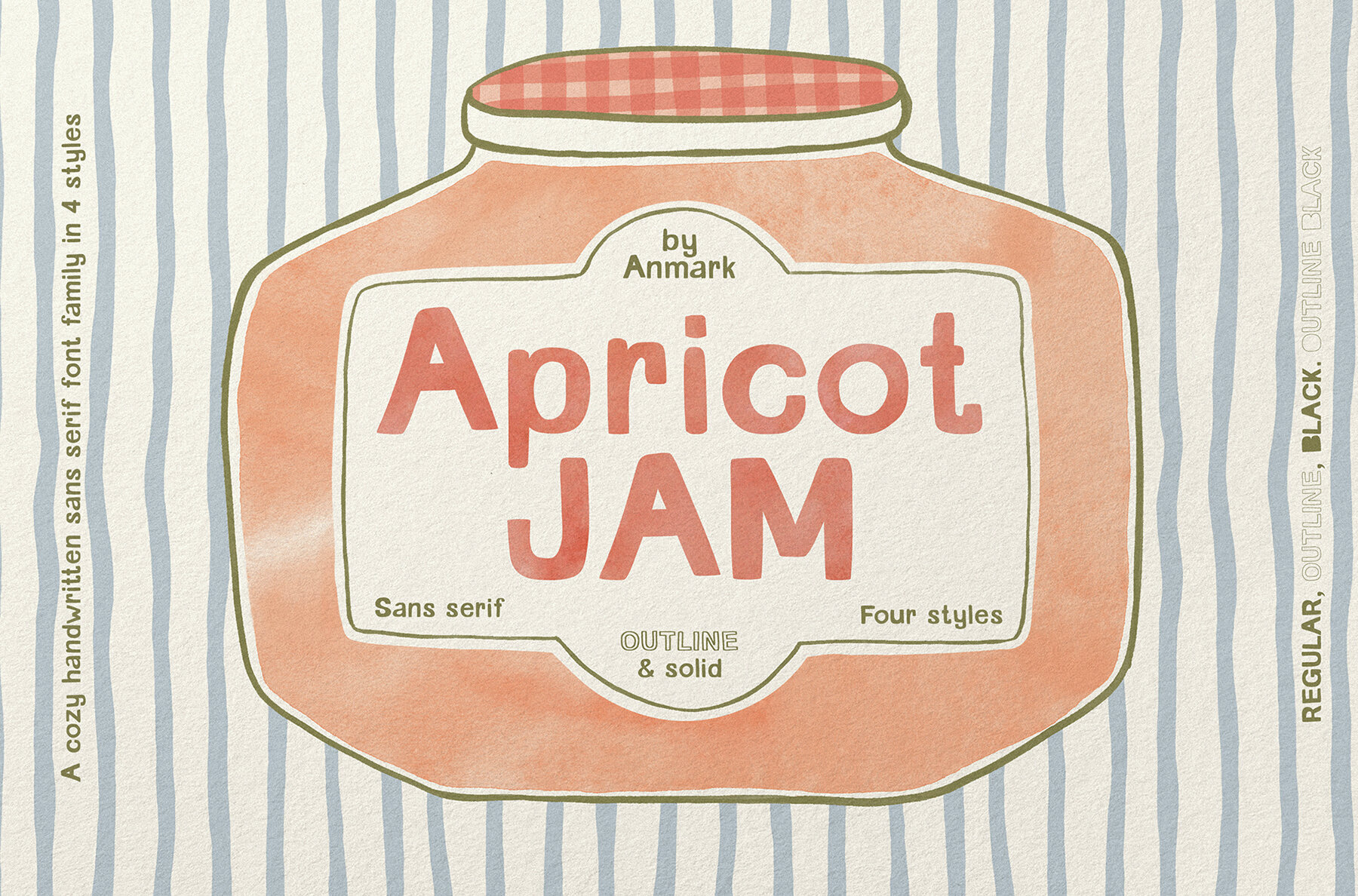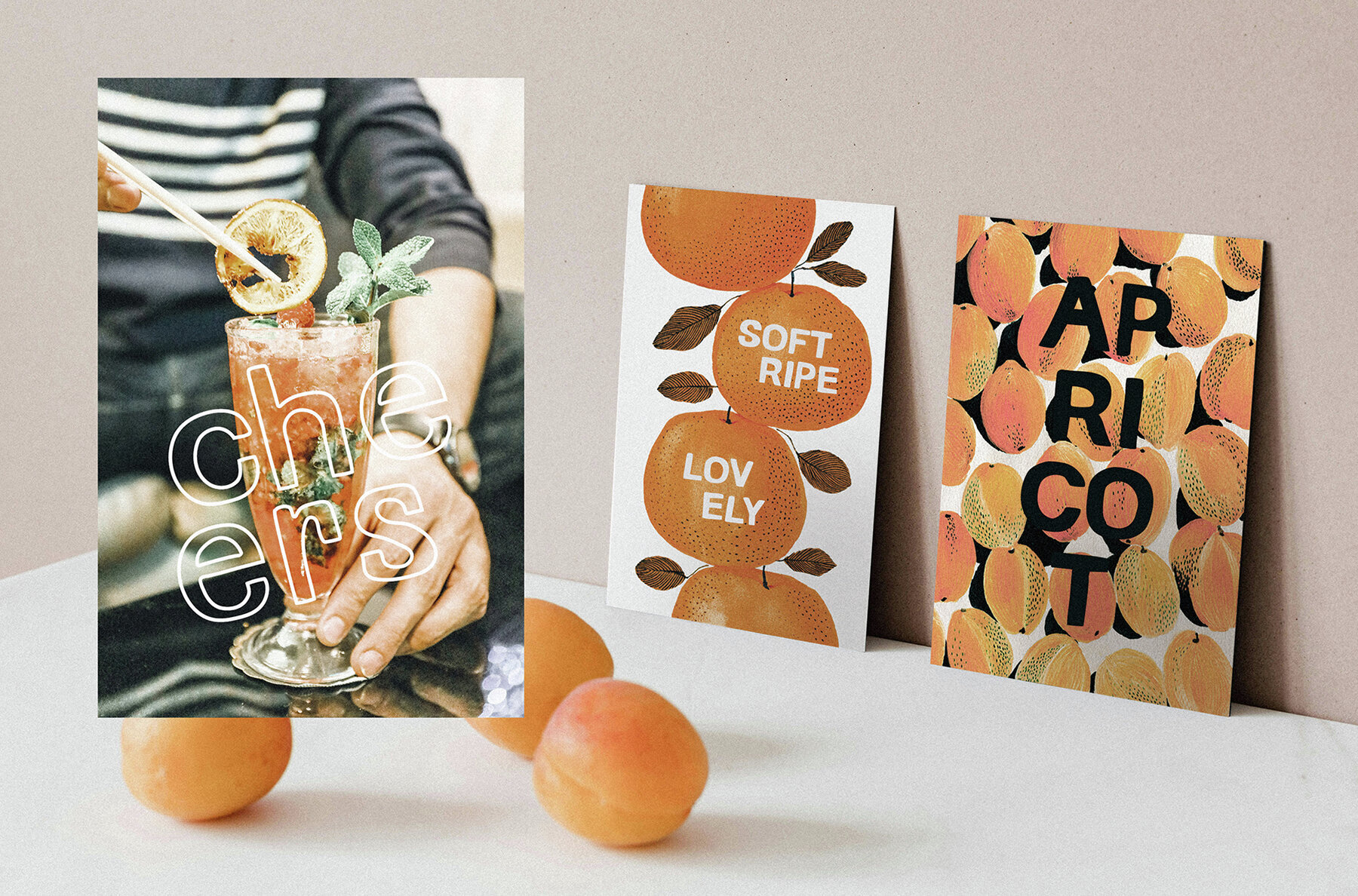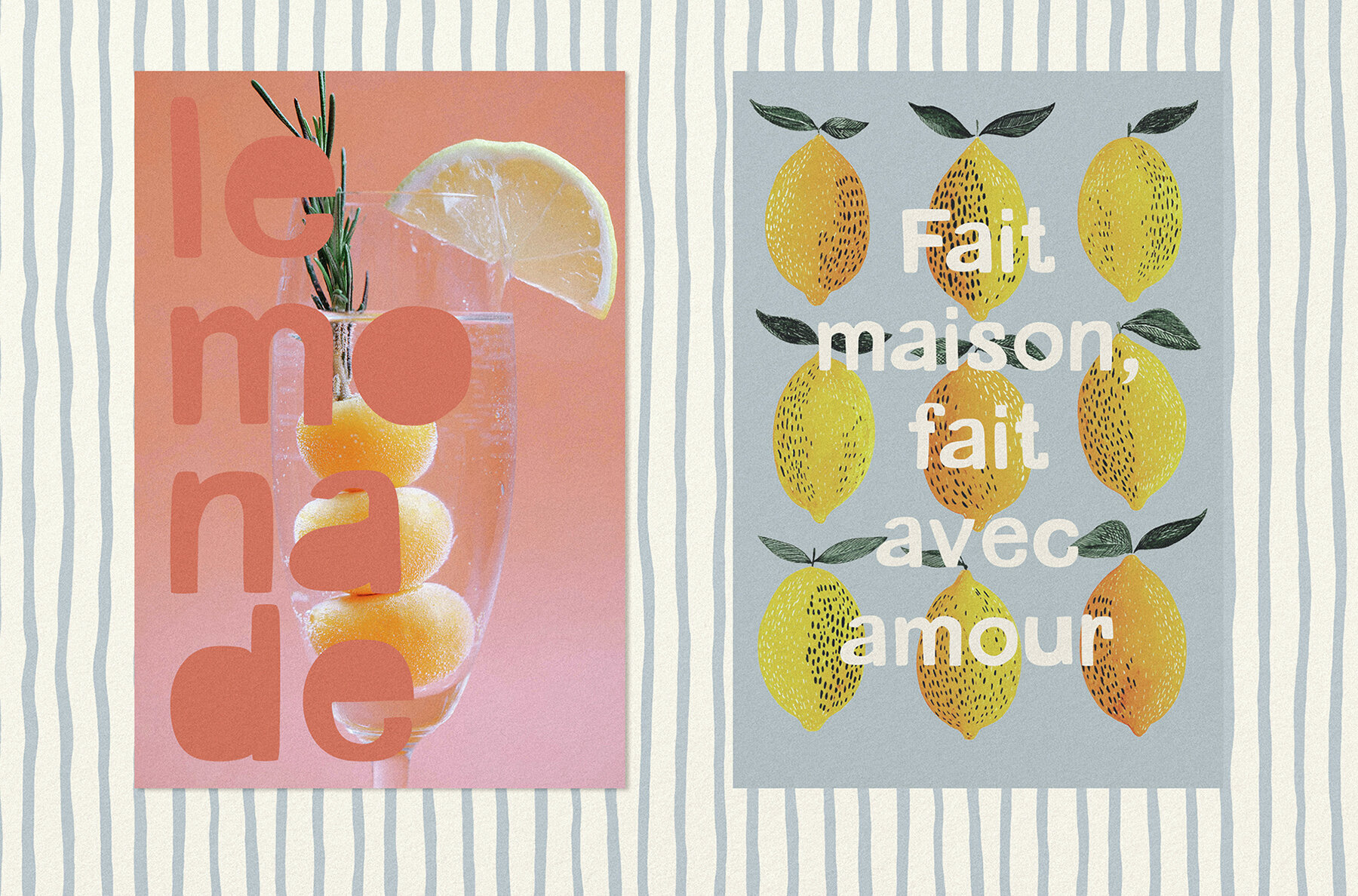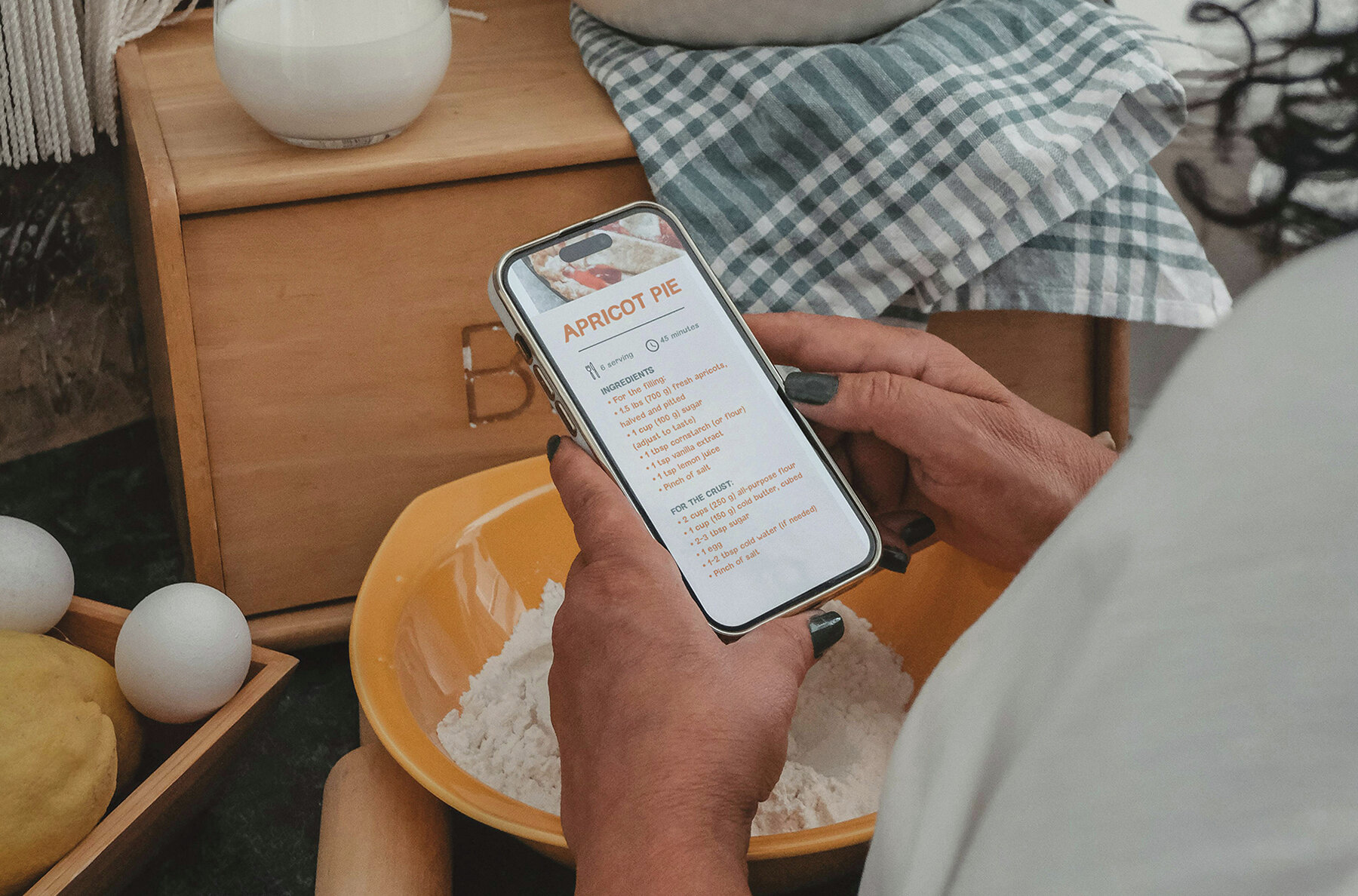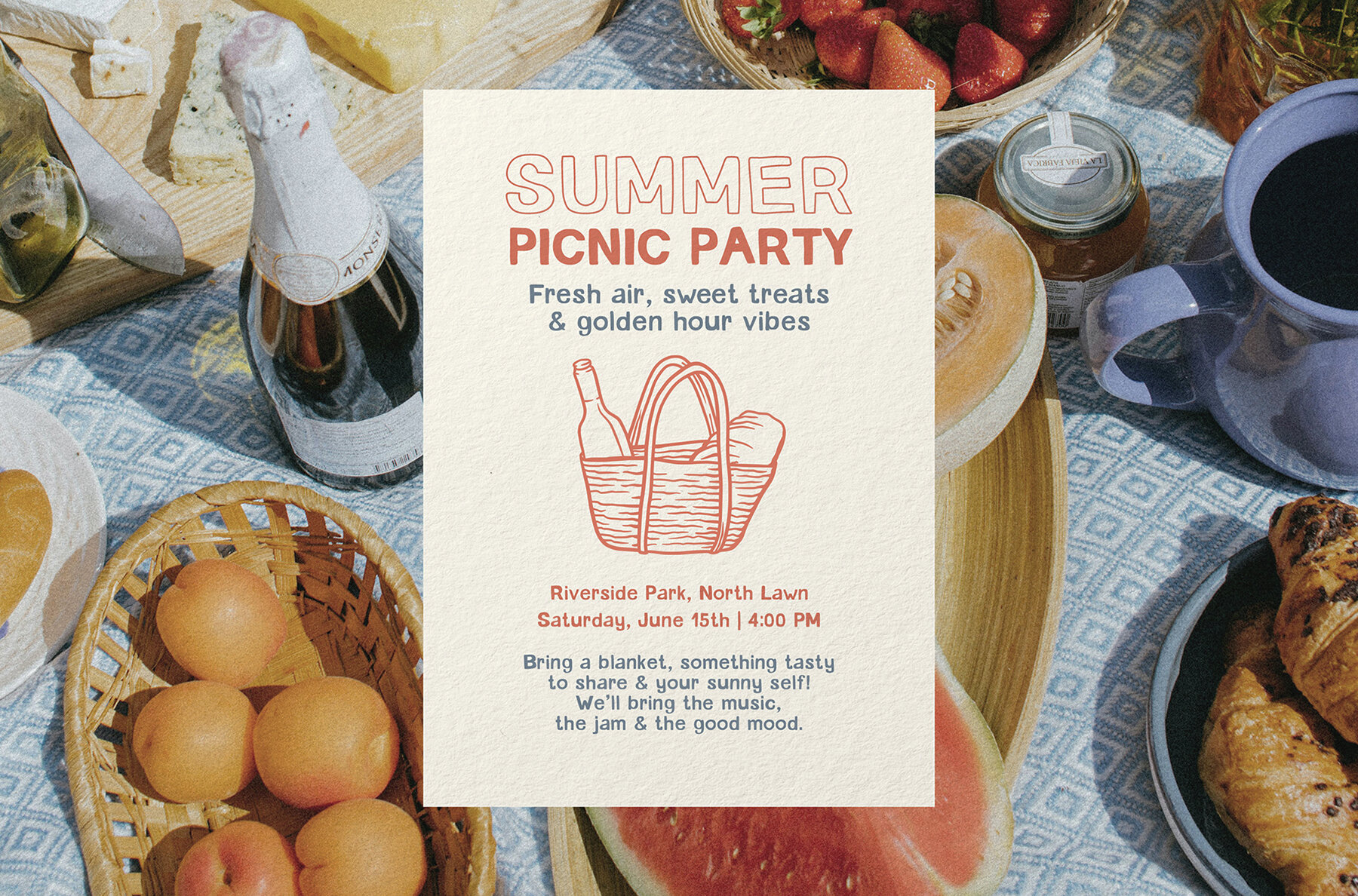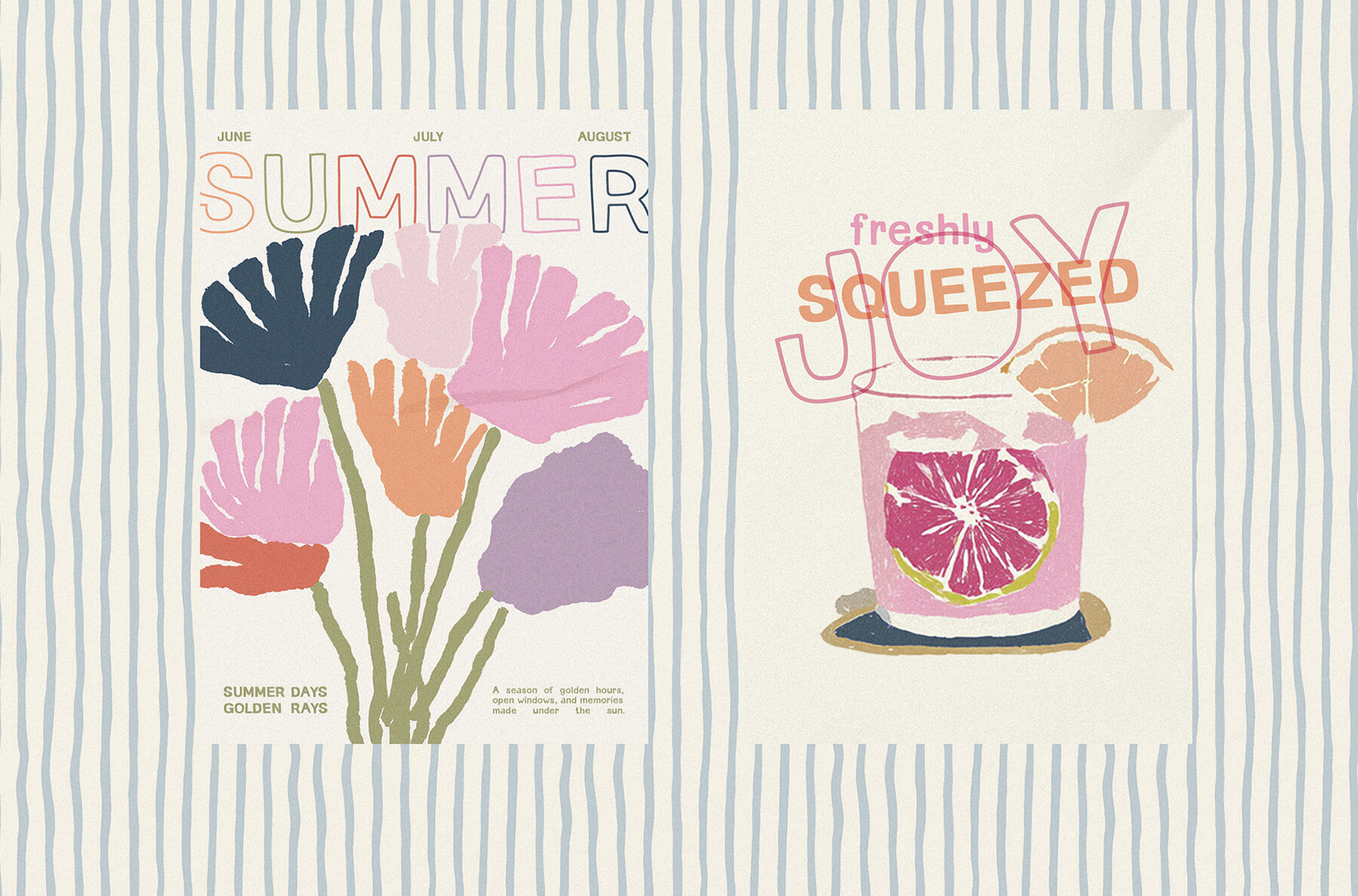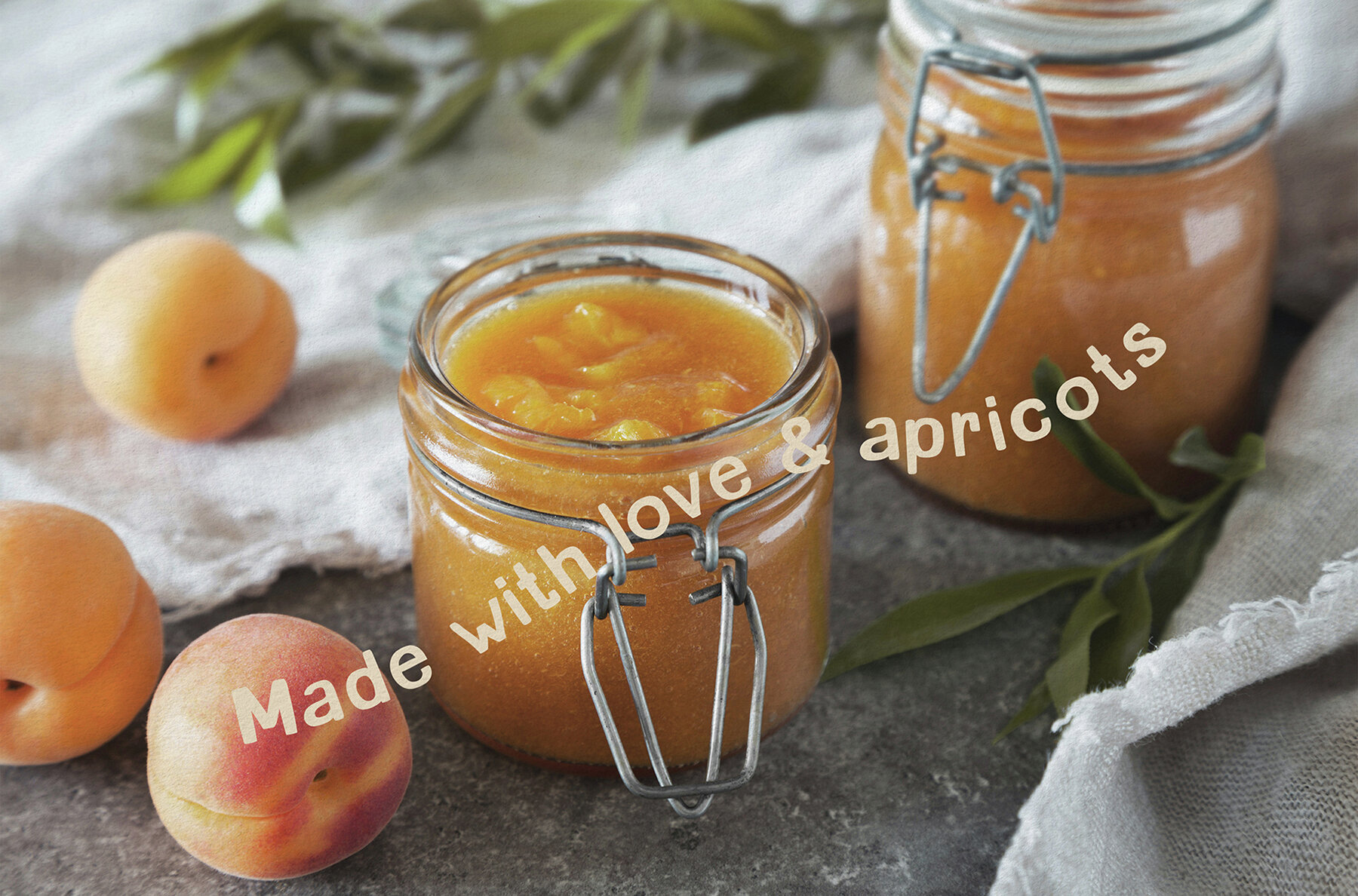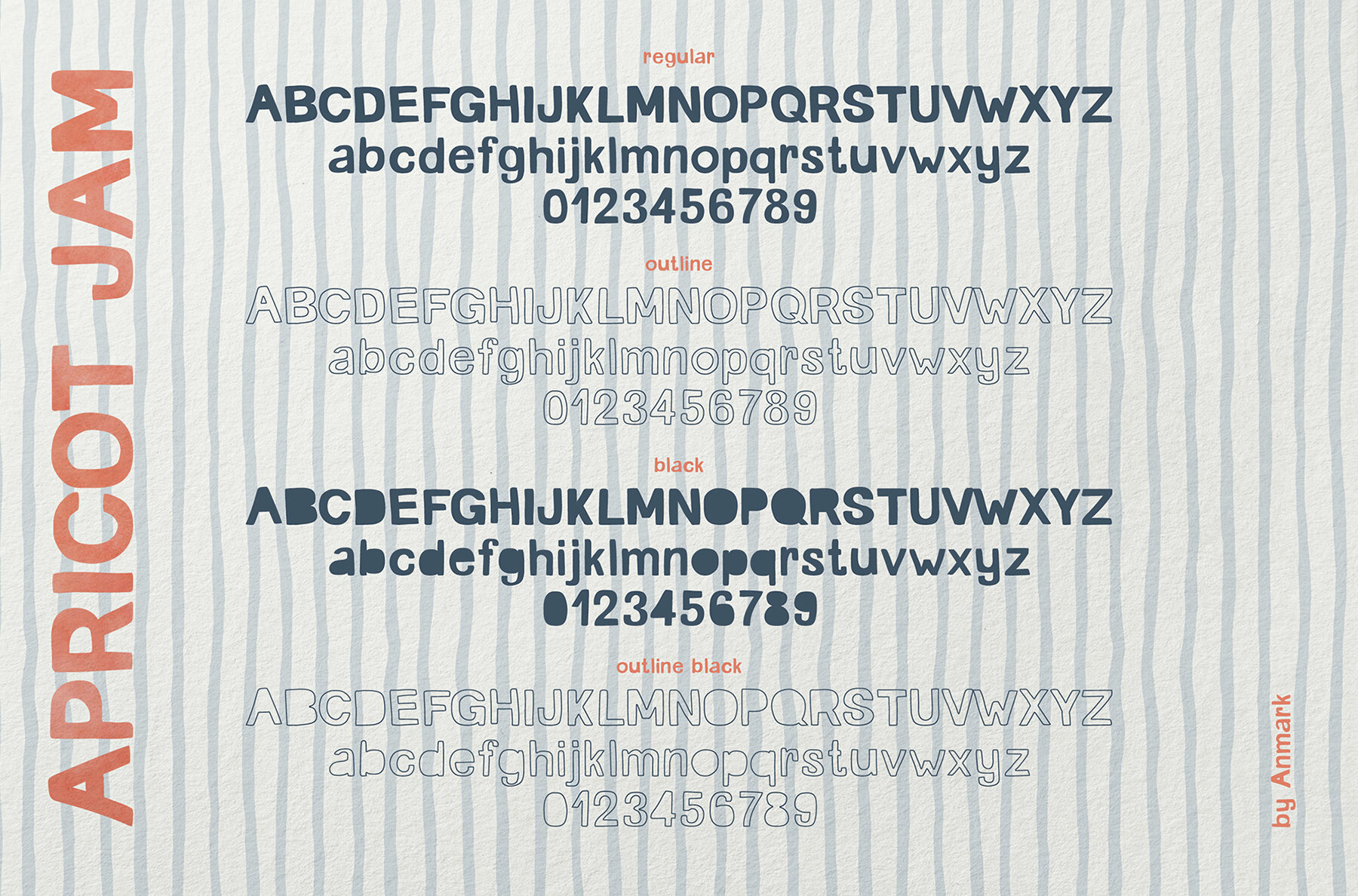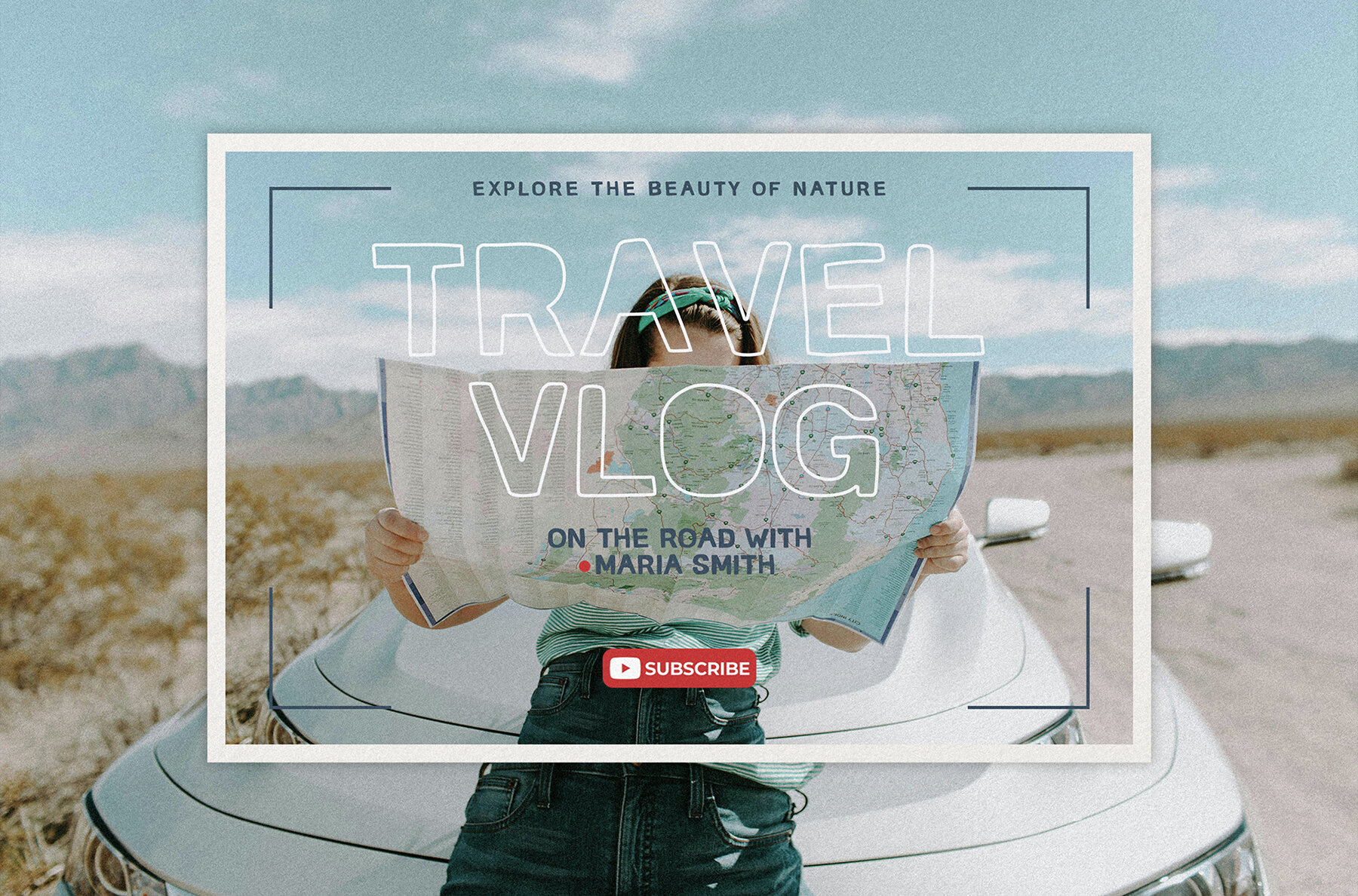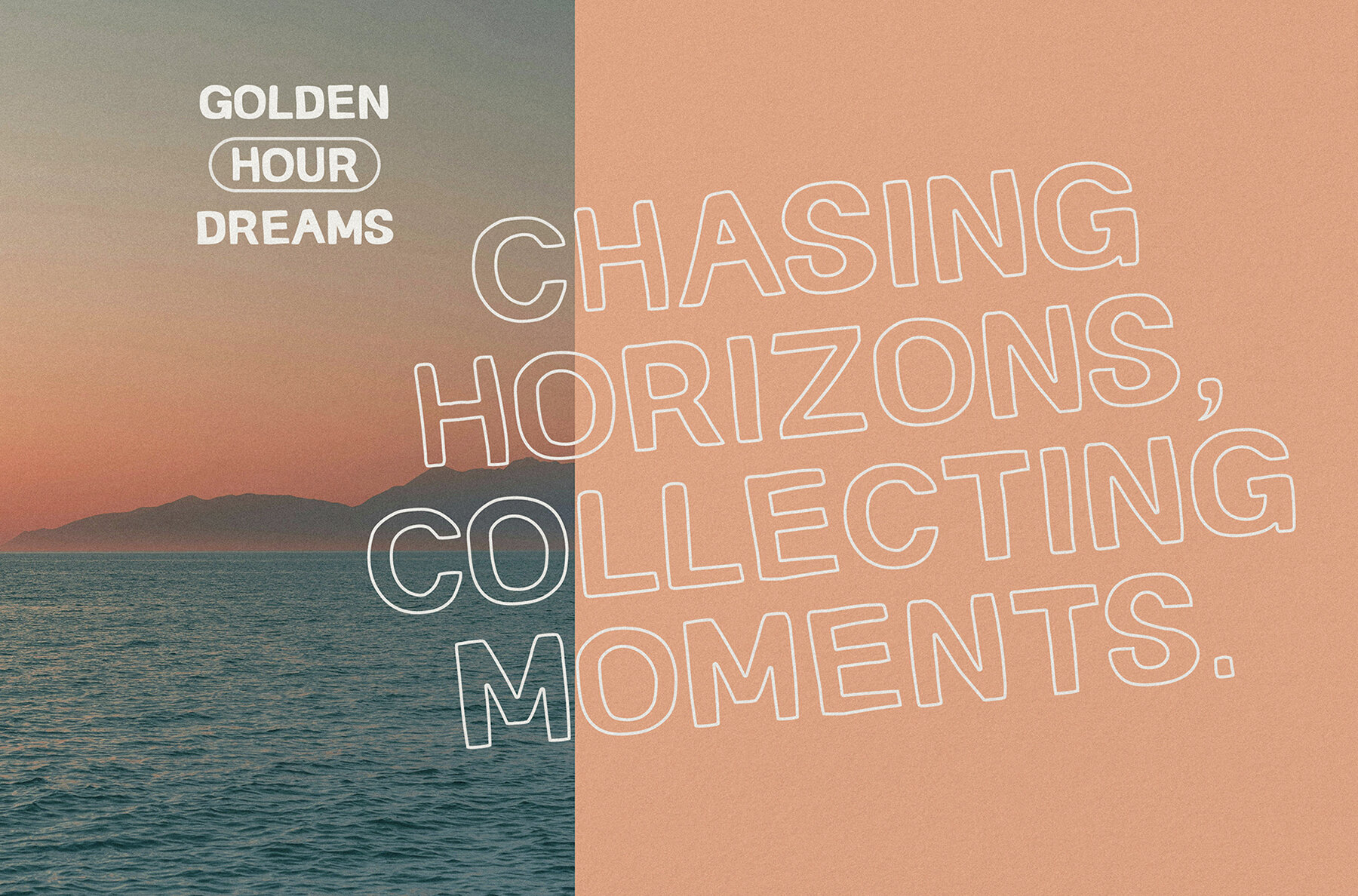
Apricot Jam Font
Apricot Jam Regular
Apricot Jam Black
Apricot Jam OutlineBlack
Apricot Jam Outline
Immerse yourself in the warm allure of Apricot Jam, a handwritten sans serif font that exudes cheerful personality with its retro charm. Designed to adapt seamlessly to a variety of projects, this typeface comes in four distinctive styles: Regular, Black, Outline, and Outline Black. Whether crafting bold headlines or subtle accents, Apricot Jam infuses each element with its delightful character. Perfectly suited for a myriad of creative endeavors, Apricot Jam shines in summer projects, editorial layouts, and packaging designs. It adds a breezy, sunny vibe to birthday and wedding invitations, travel journals, and fruity labels. With its vibrant energy, Apricot Jam enhances every design with a unique and playful spirit.Apricot Jam: Retro-Inspired Handwritten Sans Serif